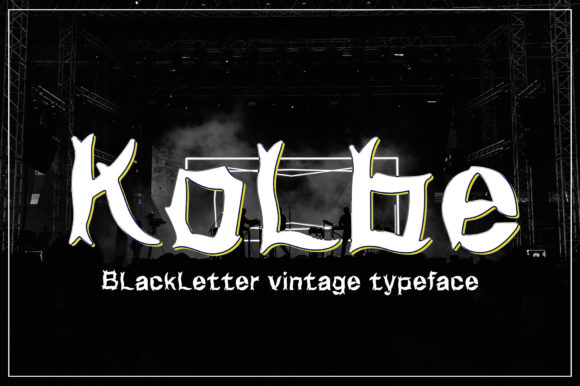
**Kolbe: An Enchanting Blackletter Typeface to Cast a Spell of Elegance and Grandeur**
Welcome to the captivating realm of Kolbe, a magnificent Victorian blackletter font designed to ignite your imagination and transform your creative visions into masterpieces. This exquisite typeface, meticulously crafted by the talented artist Choirulcreator, stands apart from the ordinary, inviting you to embrace a world of enchanting typography.
Imagine a font that exudes sophistication and charm, effortlessly captivating the attention of all who behold it. Kolbe's uniquely shaped letters, a testament to the artist's meticulous attention to detail, dance upon the page, creating an aura of elegance and timeless allure. Each character, meticulously designed, seamlessly blends into the next, forming a captivating tapestry that will leave your audience spellbound.
Whether you seek to craft captivating event flyers that announce grand gatherings or desire to add a touch of medieval magic to your latest design project, Kolbe stands ready to elevate your creations to new heights. Its versatility knows no bounds, lending itself effortlessly to a myriad of applications, from alluring posters and invitations to enchanting branding elements and alluring social media graphics.
With Kolbe at your disposal, you unlock a font that transcends mere text. It becomes an enchanting tool, empowering you to weave tales of elegance and grandeur through the power of words. Its captivating presence commands attention, leaving an unforgettable impression on all who encounter it.
So, embrace the allure of Kolbe today and witness the transformative power of a font that will cast a spell of sophistication and beauty upon your designs. Let your imagination soar and create masterpieces that will forever captivate and inspire.